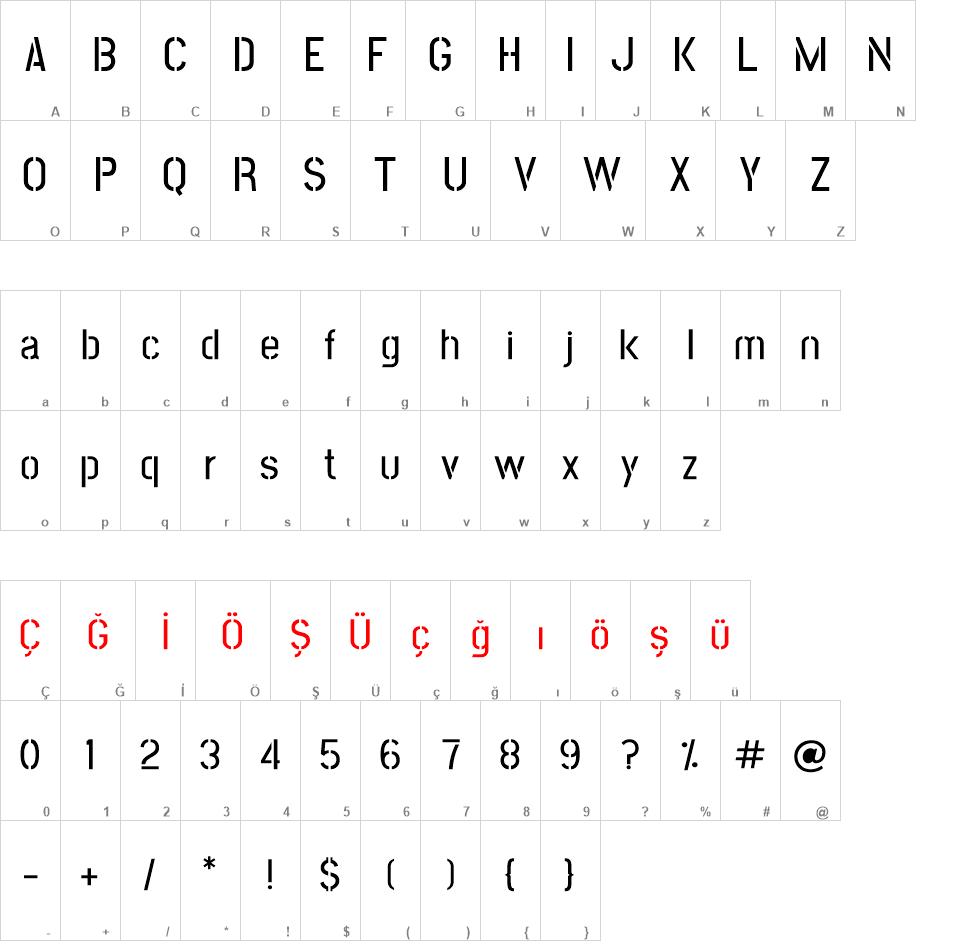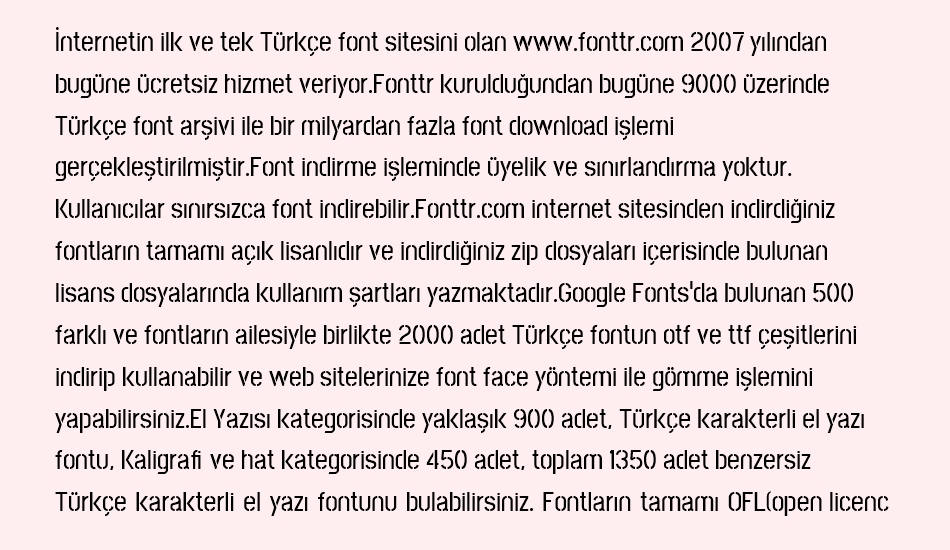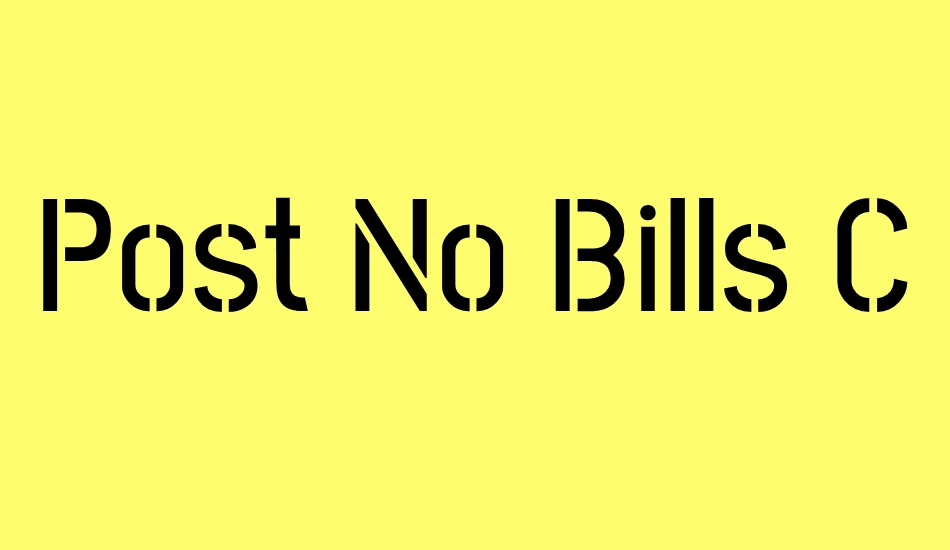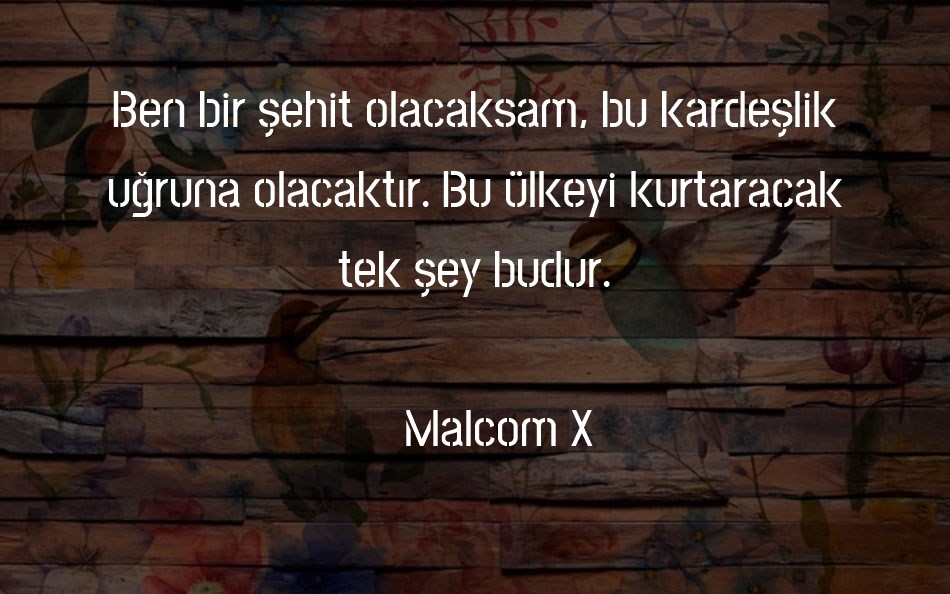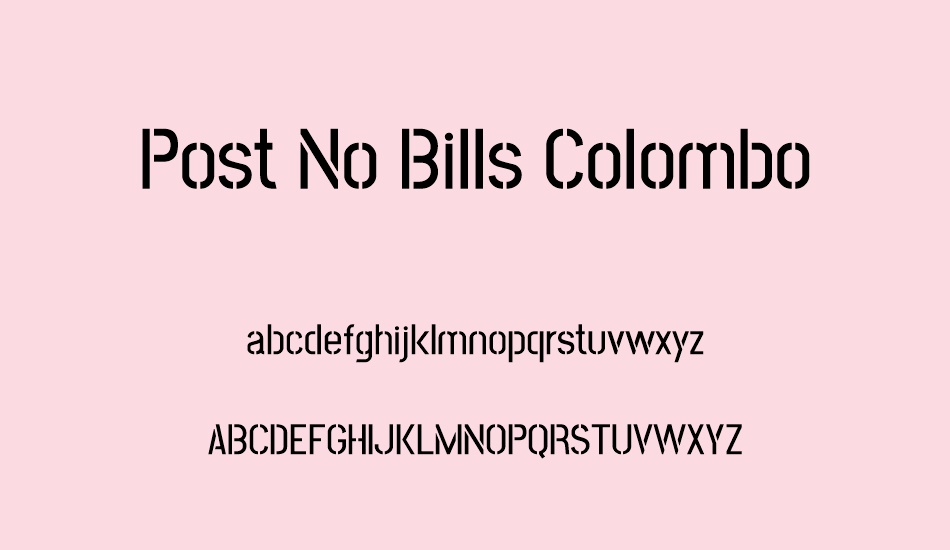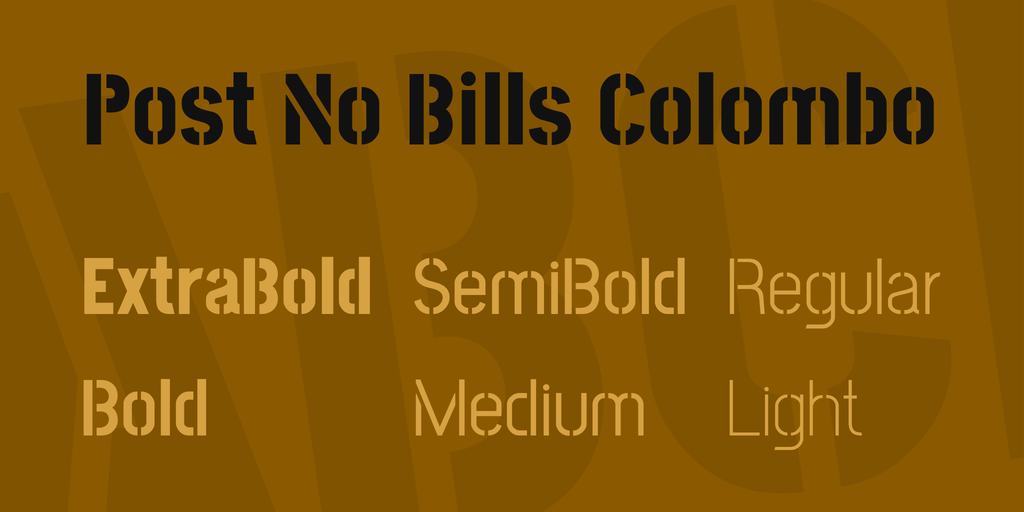
Post No Bills font
Post No Bills
Post No Bills - was developed as the bespoke Libre typeface of Stick No Bills Poster Gallery in Galle, Sri Lanka. The font supports Latin, Sinhala and Tamil languages. Martyn Hodges developed the first drawings for the typeface for uppercase. In February 2015, Meg Baber, co-founder of Stick No Bills gallery, commissioned Mooniak took up the project in 2015 and is working on further refining and developing a comprehensive font with support for more languages. Post No Bills family contains six weights from Extra Light to Extra Bold intended for headlines. Post No Bills contains Sinhala and Latin glyphs sets and Post No Bills Jaffna contains Tamil and Latin glyph sets. The stencil is the solutions for creating a reproducible, replicable lettering. Sinhala stenciled letters are common in Sri Lankan Railway cars and busses. There is no accepted style or universal consensus on the cuts, and that is the beauty of stencil. All of these have different stencil cuts in very different places without an aim to overall make-up harmony. This project is inspired partly by existing Sinhala and Tamil stencil lettering around us. But we built the letters of all three alphabets in thinking about the stencil structure ground up. Therefore, it is a fresh face but a readable face. The designers of Mooniak, the collaborative collective of creatives based in Colombo, Sri Lanka, led the project.
Post No Bills Colombo font